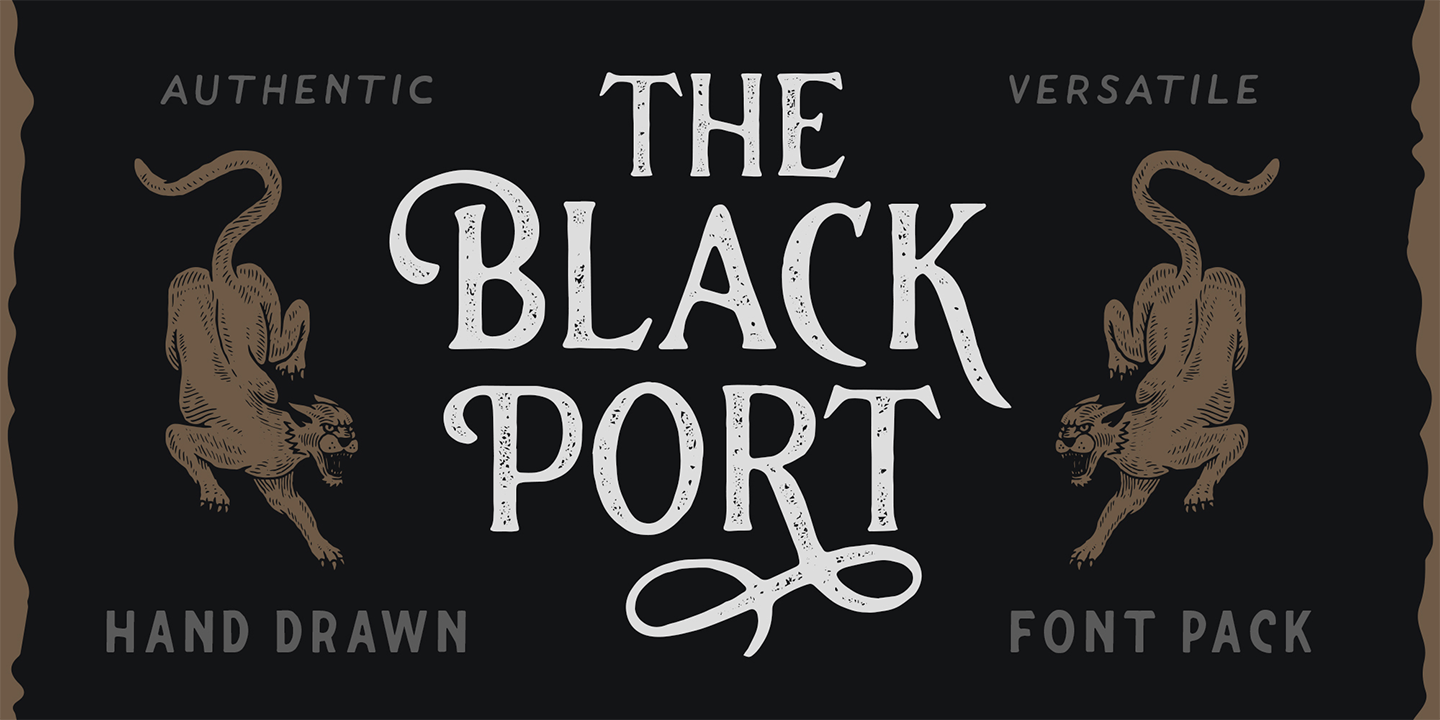
The Blackport Font is an excellent choice for designs that aim for a bold, distinctive, and often rugged or vintage-inspired aesthetic, reminiscent of classic craftsmanship or robust industrial design. Imagine it making a powerful statement on a craft beer label, adding a unique and strong visual punch to outdoor adventure branding, or bringing an authentic, raw feel to urban streetwear designs. It's also perfectly suited for energetic event posters, graphic novel titles, independent film credits, and any project where you want to convey a sense of individuality, grit, and an unapologetic, unique voice. Its often strong, irregular forms, and assertive presence make it ideal for conveying confidence and a memorable statement.
What makes The Blackport Font so exciting is its ability to instantly capture attention with its unconventional yet compelling letterforms. It frequently features highly stylized elements, perhaps resembling distressed hand-drawn characters or rough brush strokes, that give it a distinctive personality, making it a true showstopper for display purposes. This font has a powerful and artistic presence that can instantly elevate your design, making it feel both sophisticated and daring. It’s designed to be a focal point, ensuring your message is not just seen, but remembered for its distinctive and raw flair.
The Blackport Font family typically focuses on a few impactful weights, as its primary purpose is high-impact display use rather than extensive body text. It often includes unique ligatures or stylistic alternates that allow for highly customized and visually dynamic typographical compositions, enhancing its expressive appeal. These features empower designers to create truly unique and artistic headlines, ensuring The Blackport Font Free Download can adapt to a wide array of projects while maintaining its signature, bold charm.